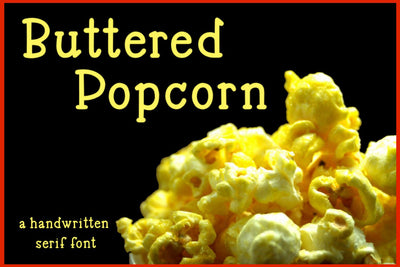
Buttered Popcorn - A handwritten serif font
Buttered Popcorn is a handwritten serif font made up of capital letters A-Z, lowercase letters a-z, numbers 0-9, accented characters and punctuation.